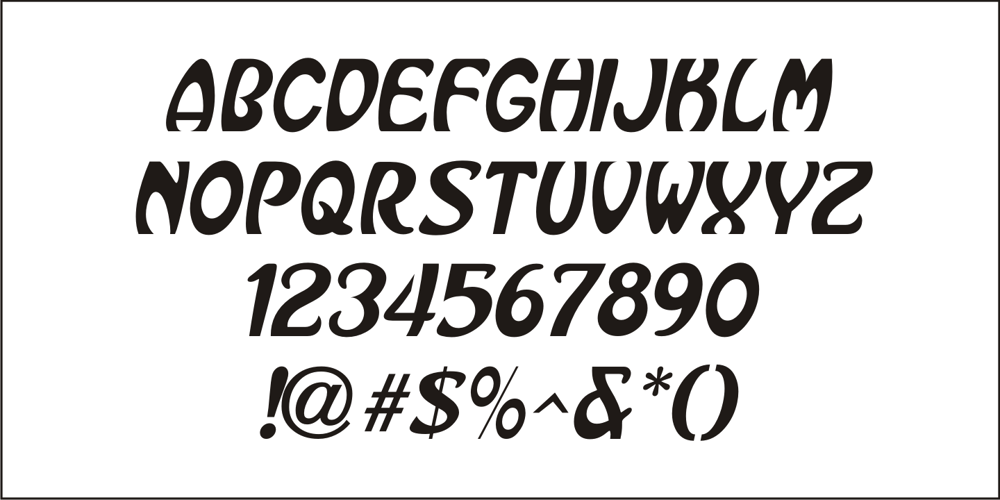
Nouveau Song JNL Font Family was designed by Jeff Levine and published by Jeff Levine. Nouveau Song JNL contains 2 styles and family package options. The Art Nouveau free-form, hand lettered title on the cover of the 1912 sheet music for Irving Berlin’s “Wait Until Your Daddy Comes Home” formed the basis for Nouveau Song JNL, which is available in both regular and oblique versions.